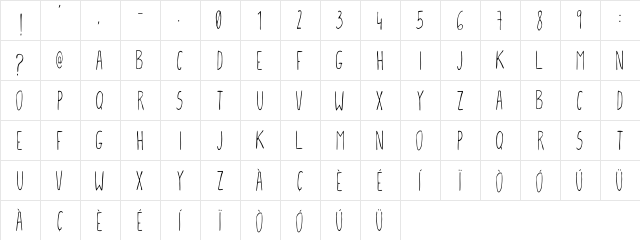
GCMFontone Regular
Design Context for GCMFontone Typeface
GCMFontone is a composed and adaptable typeface that performs quietly and consistently across a wide range of design contexts.
Pro Tip: Pair GCMFontone with a font of contrasting weight or personality to build a more expressive typographic hierarchy.